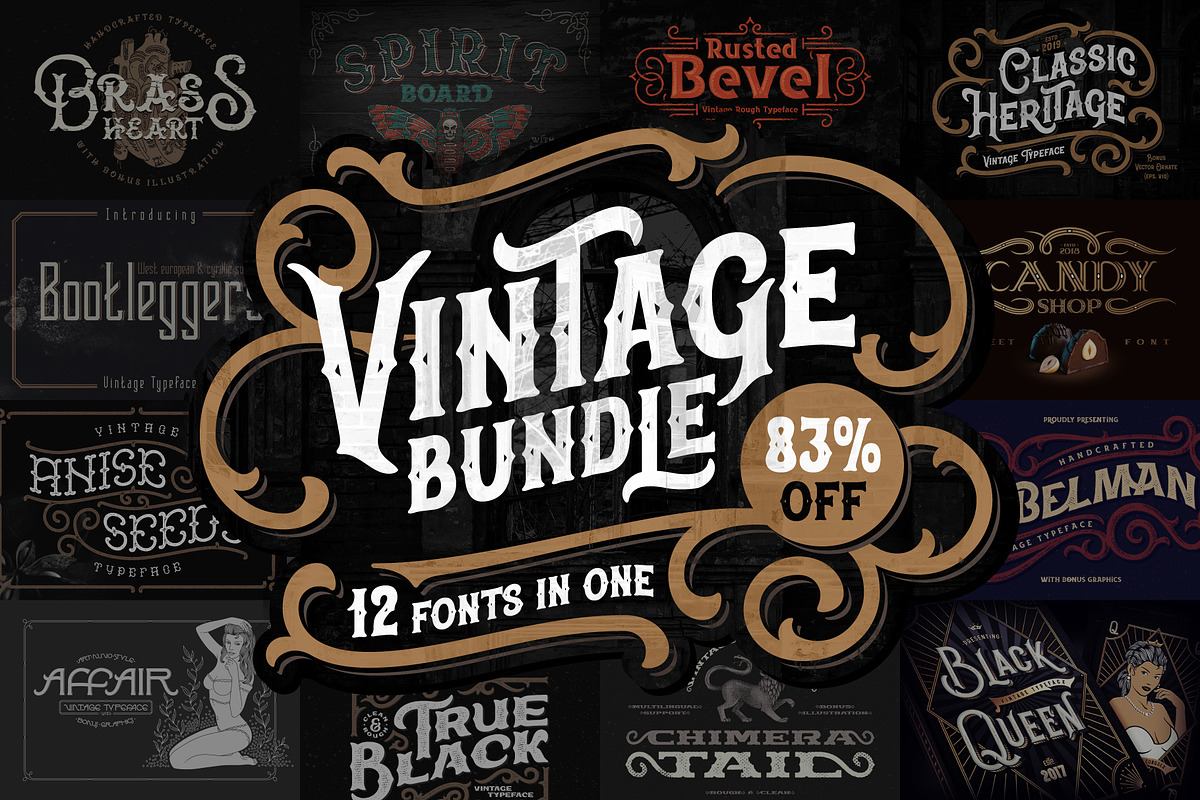
Please note, you must purchase this font for commercial use. However, you can easily download Vintage Fonts Bundle Free Download for personal use and testing purposes. Vintage Fonts Bundle is a collection of retro-inspired typefaces designed to bring a timeless, nostalgic touch to your projects. Perfect for branding, posters, logos, social media graphics, and more, this bundle features a variety of fonts that capture the essence of vintage design, from bold display fonts to elegant script fonts. Whether you're working on a retro branding project, a vintage event invitation, or any design that needs a bit of old-school charm, Vintage Fonts Bundle Free Download provides all the tools you need to create eye-catching, classic designs. Download Vintage Fonts Bundle Free Download today and explore its potential before opting for a commercial license.